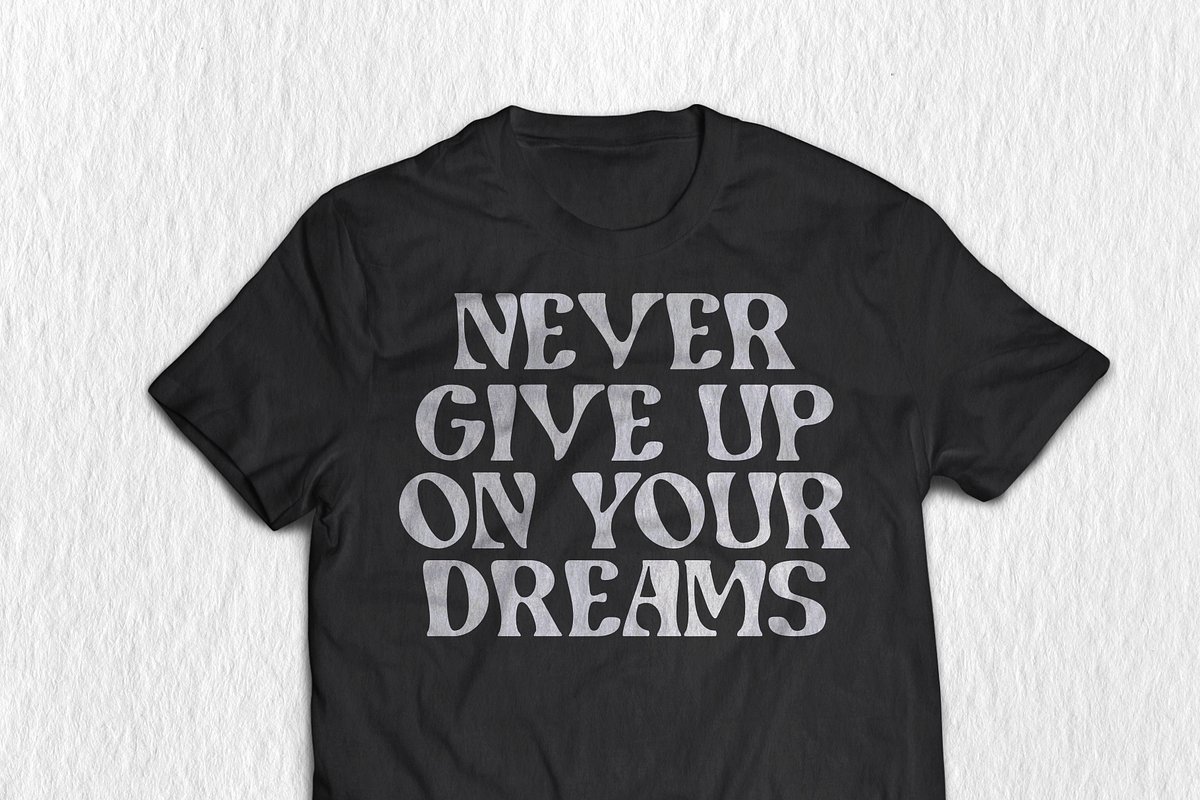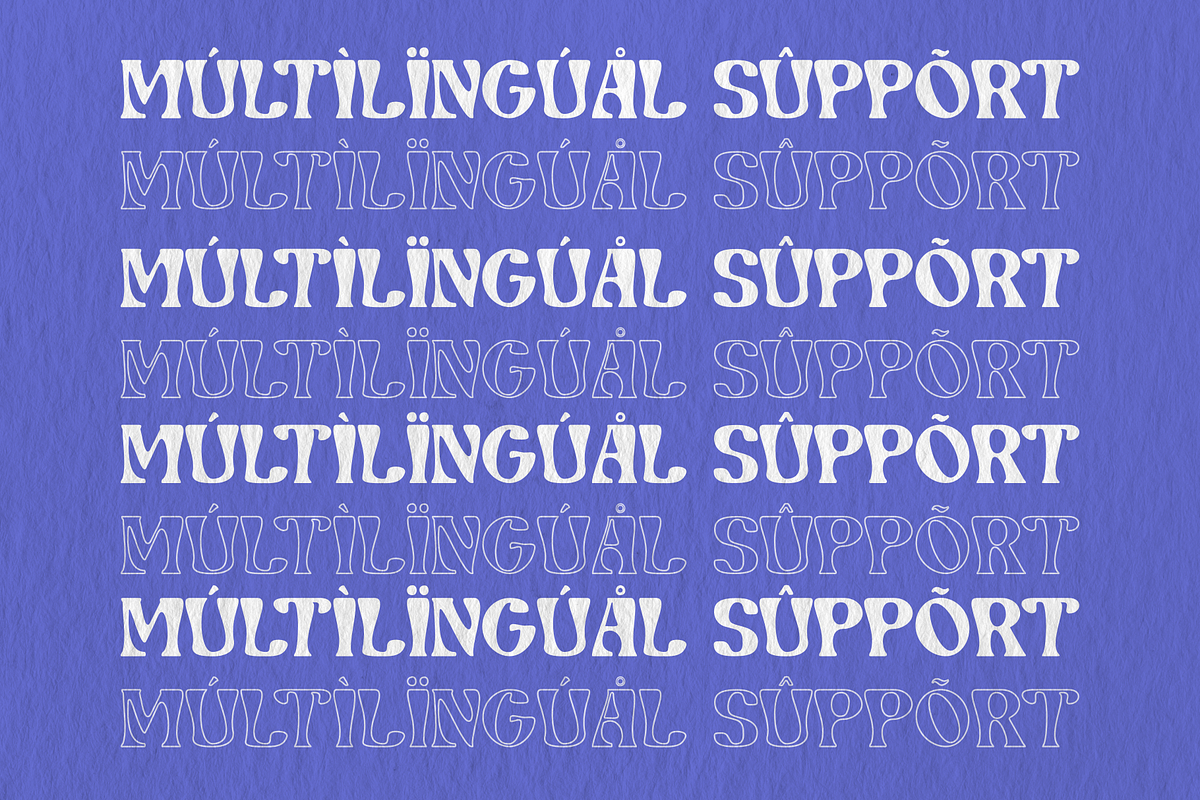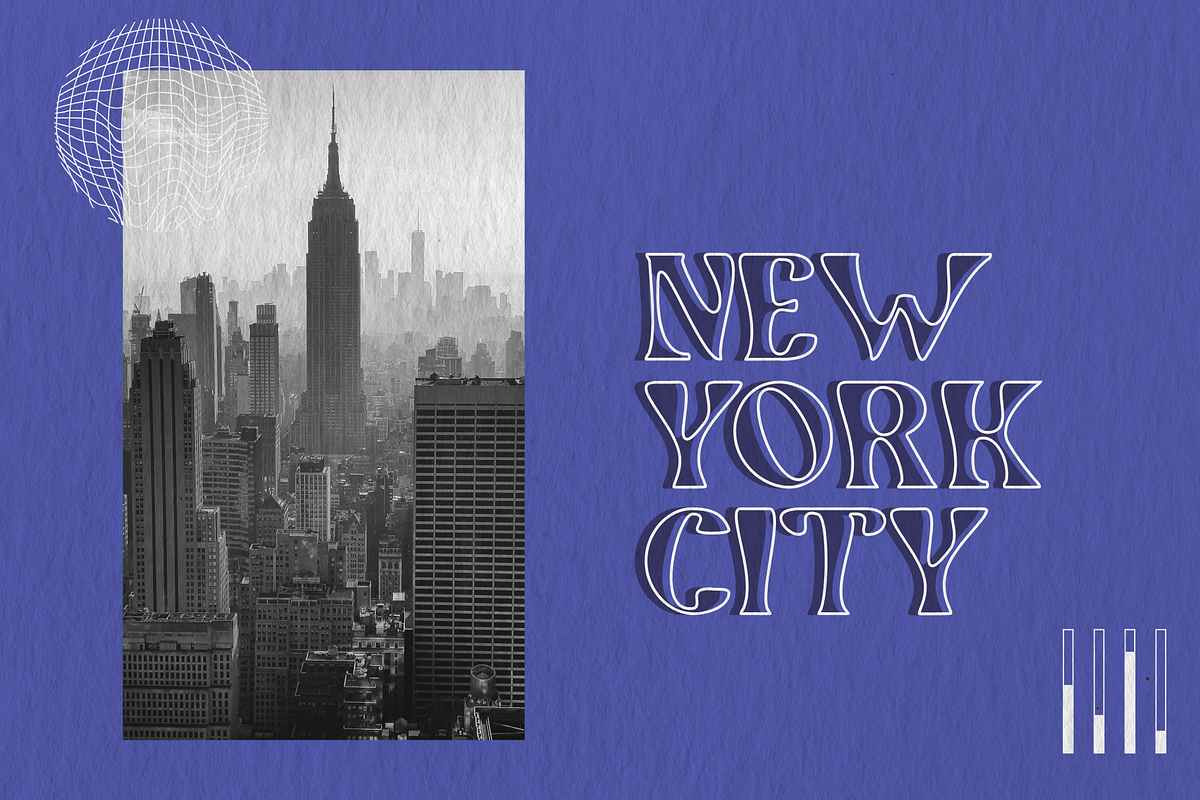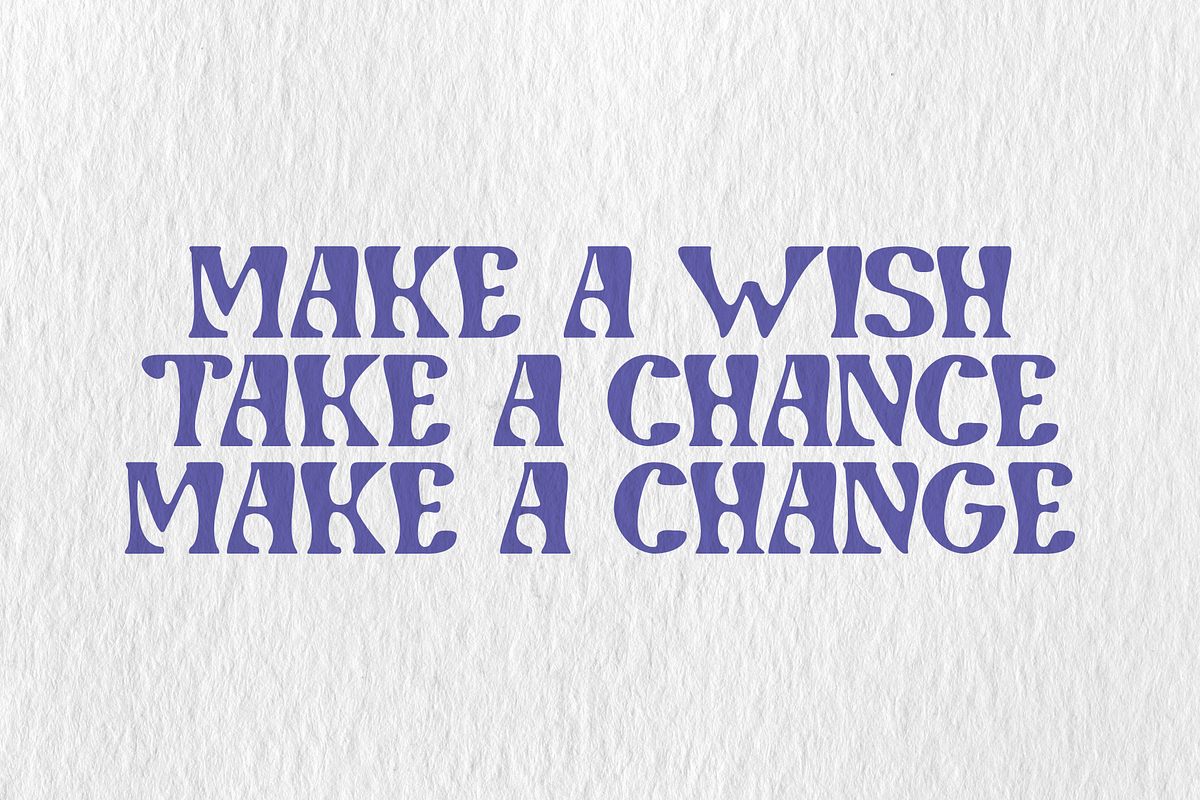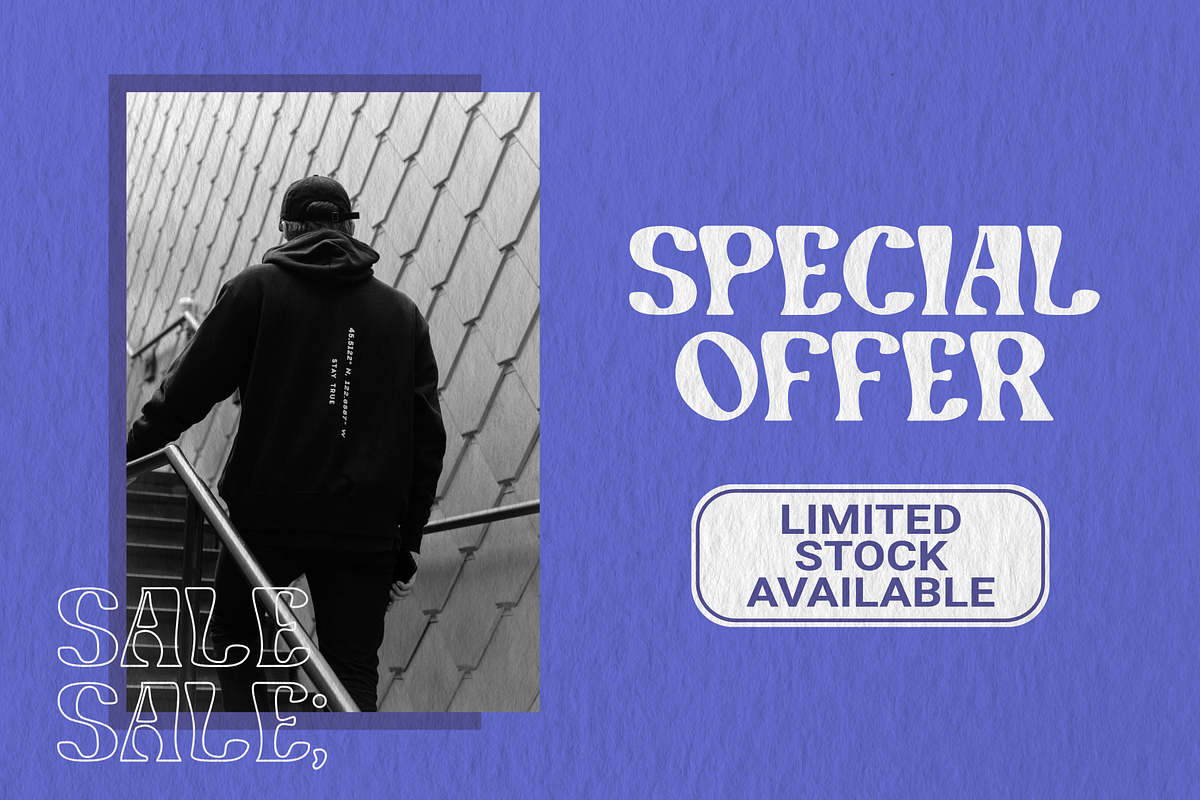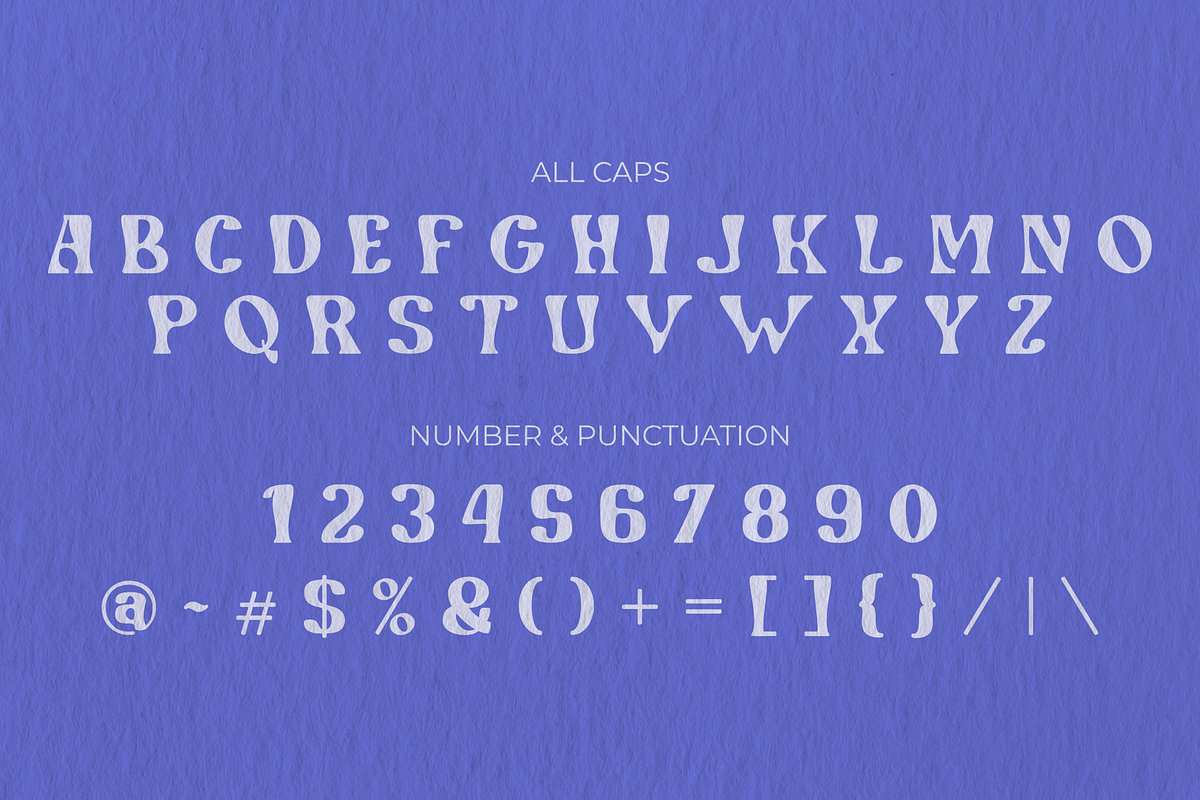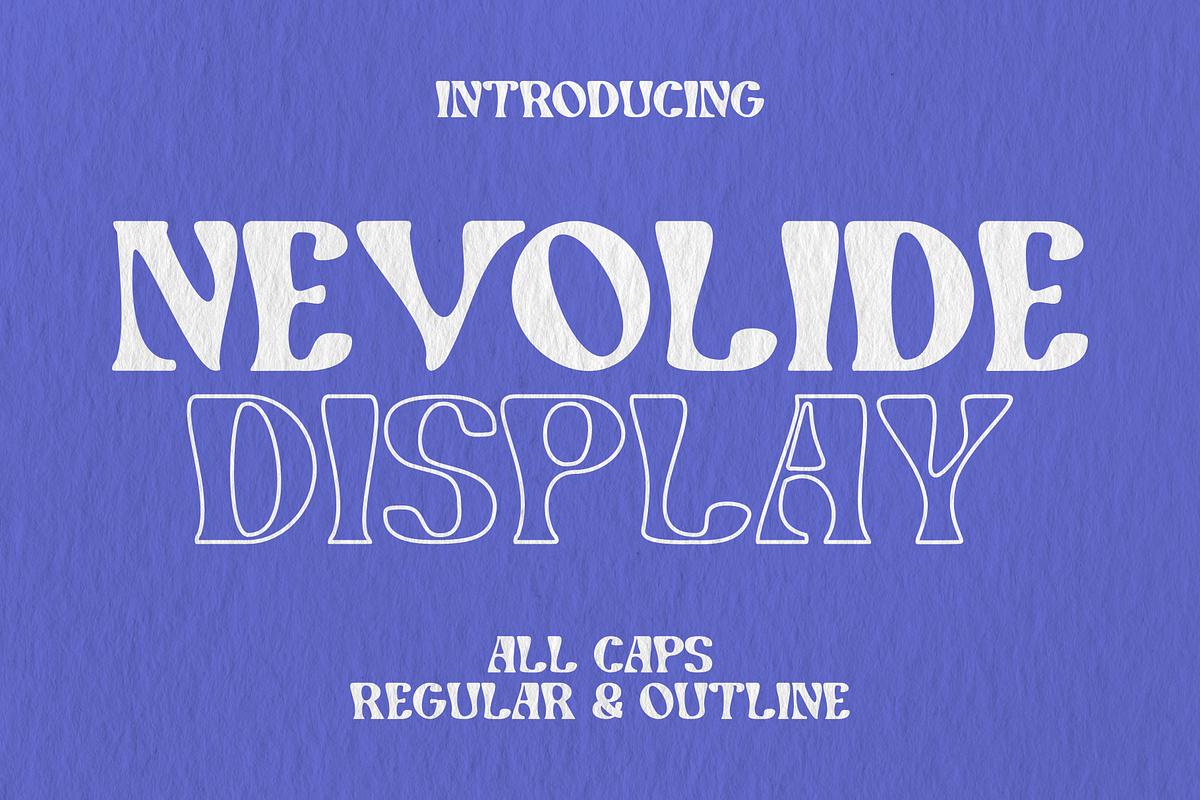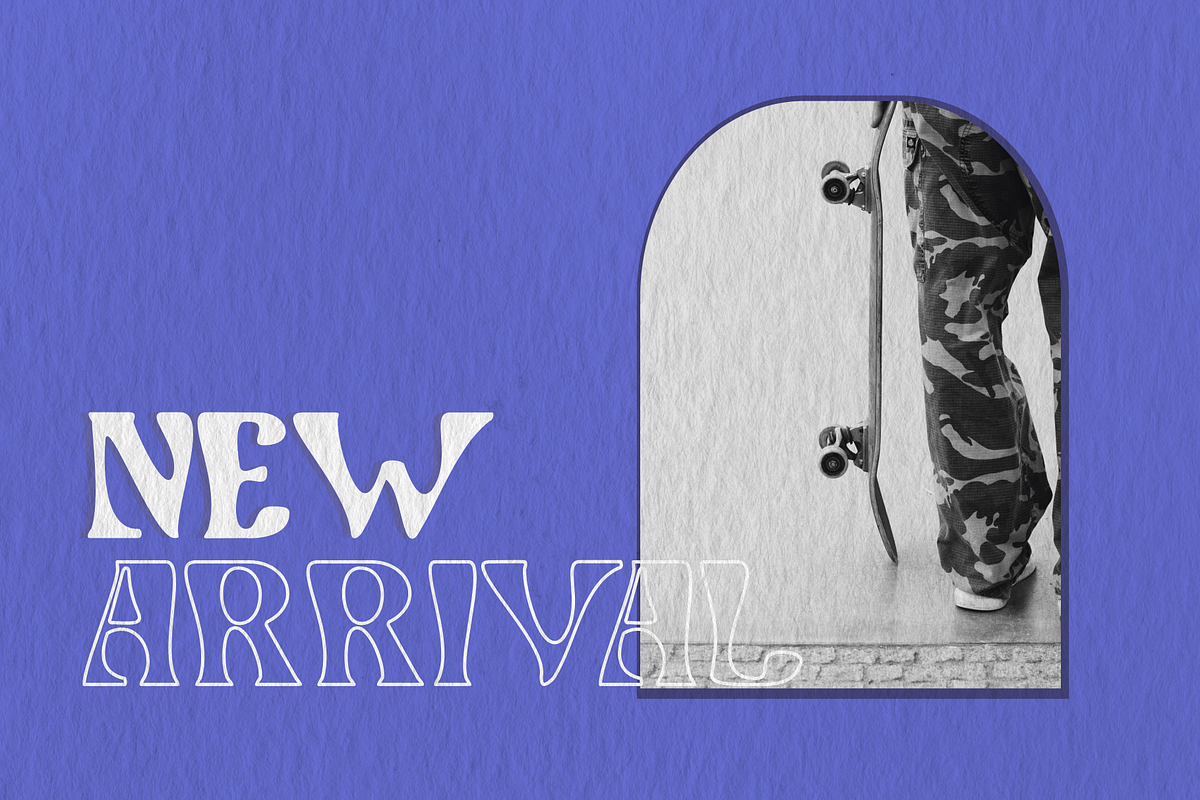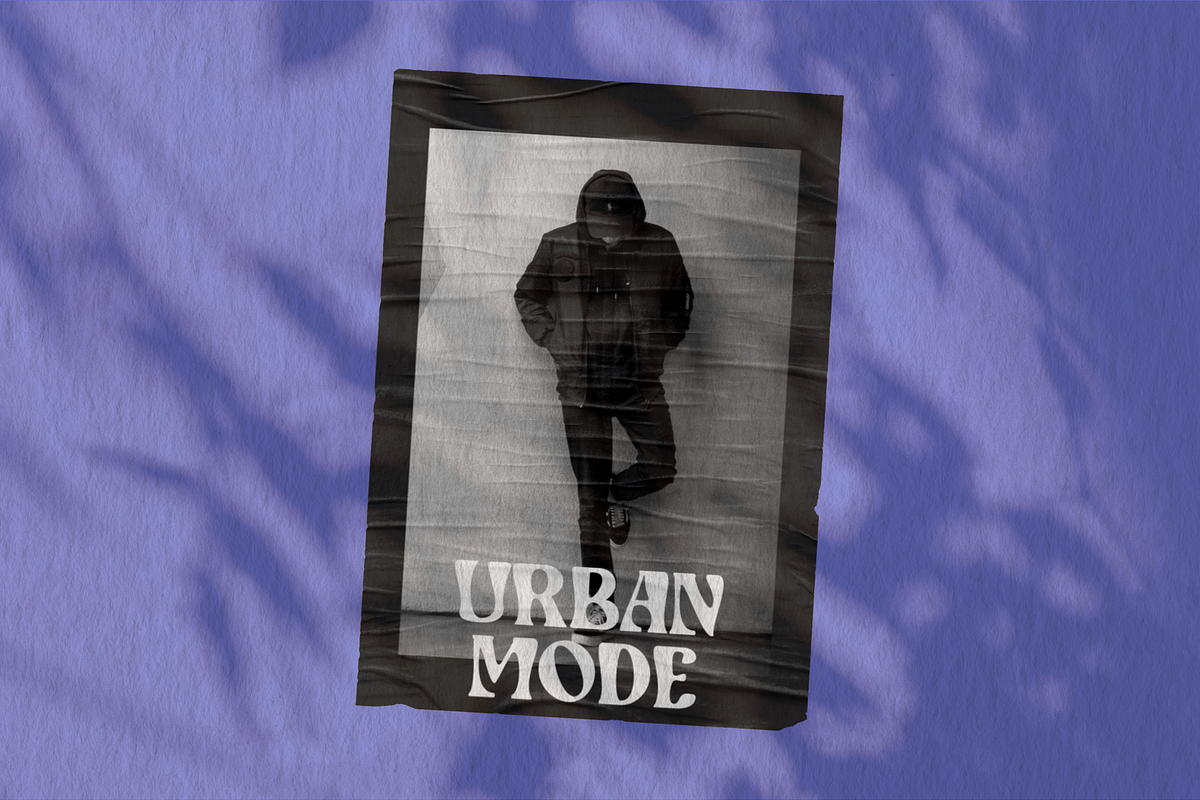
Nevolide is a modern display font. Its elegant and cool look makes it the perfect choice for logos, branding, invitations, stationery, wedding designs, social media posts, and so much more.